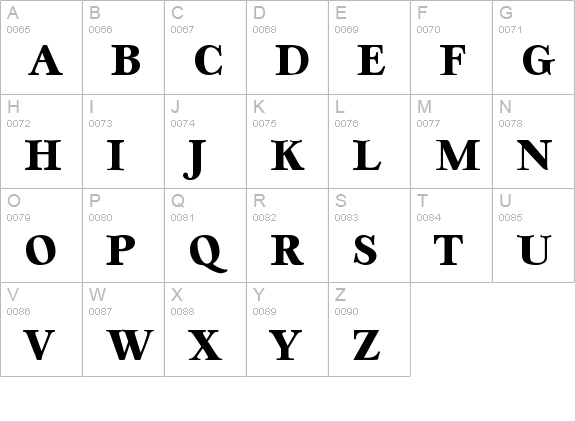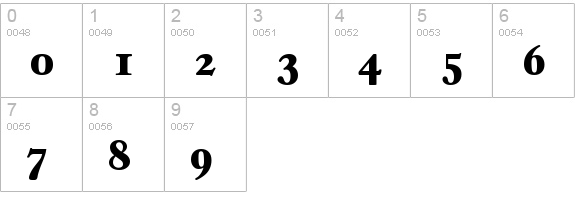
CasablancaSerial-Heavy-Regular is a heavy, high-impact variant in the CasablancaSerial typeface family \xE2\x80\x94 well suited to high-impact headlines, posters, and display advertising.
CasablancaSerial-Heavy-Regular font is a bold and sturdy typeface designed to make a statement. With its strong and commanding presence, this font is perfect for headlines, posters, and other graphic design projects that require a touch of authority. The thick strokes and sharp serifs of CasablancaSerial-Heavy-Regular give it a classic and timeless look that is sure to grab attention. What's even better is that CasablancaSerial-Heavy-Regular font is available for free download at FontsMarket.com. This means you can easily add this powerful font to your collection without any cost. Whether you're a professional designer or a hobbyist looking to enhance your projects, CasablancaSerial-Heavy-Regular font is a versatile and impactful choice that will elevate your designs to the next level.